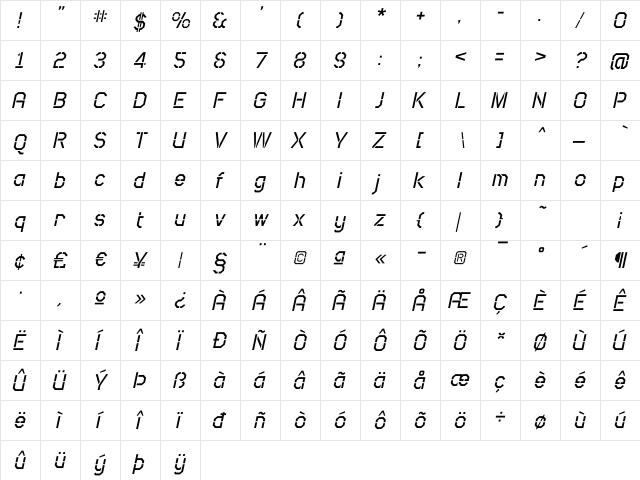
Camo SansRegular Oblique Regular
Design Context for Camo SansRegular Oblique Typeface
Camo SansRegular Oblique is a composed and adaptable typeface that performs quietly and consistently across a wide range of design contexts. The dynamic lean of this cut emphasises speed and emphasis in any layout.
Pro Tip: Use Camo SansRegular Oblique for emphasis, pull quotes, and subheadings where its slanted energy can add rhythm to the layout.